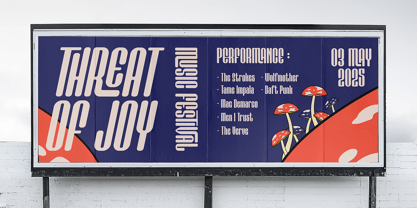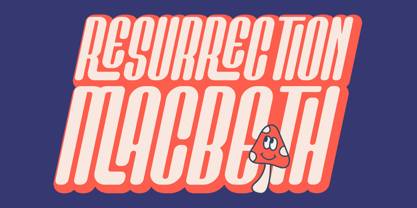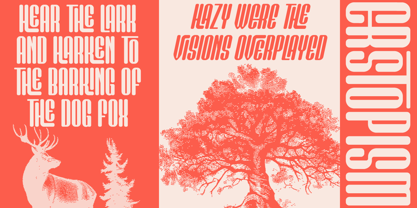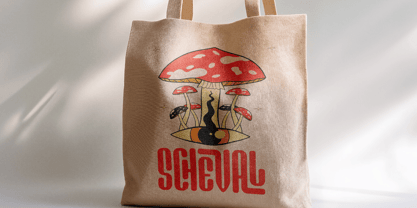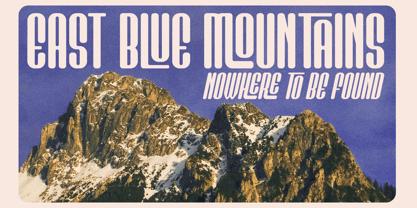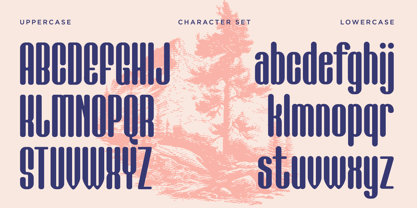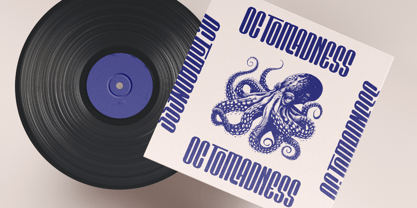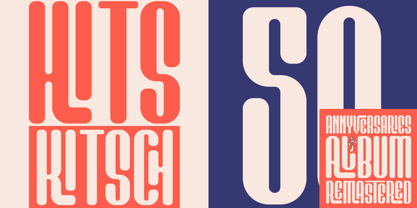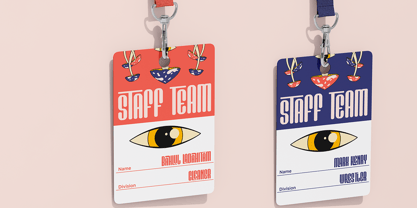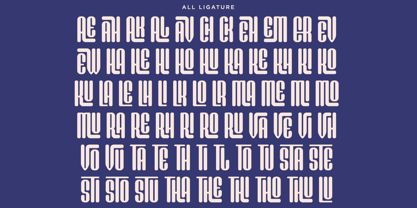
Kathalog
by Say Studio
The Kathalog Font Family was designed by Mussyayin and published by Say Studio. Kathalog contains 2 styles.
Kathalog is a condensed sans serif font that has many ligatures character, this font has a strong but soft character, with a cheerful and fresh theme, supported regular and italic style, This font is able to answer your current needs who are designing something great. Kathalog weight is superior in posters, social media, headlines, magazine titles, clothing, large print formats - and wherever you want to see it. Inspired by the design styles that are currently popular, let's make your imagination come true with Kathalog.
Designers: Mussyayin
Publisher: Say Studio
Foundry: Say Studio